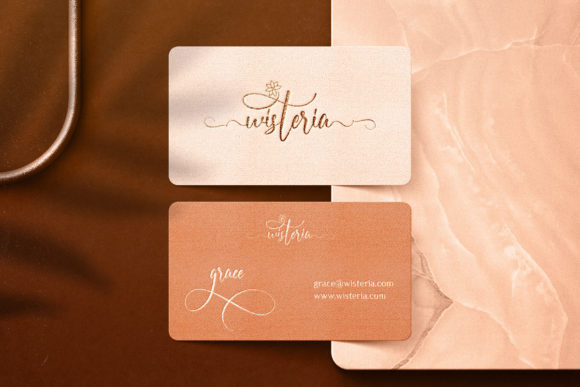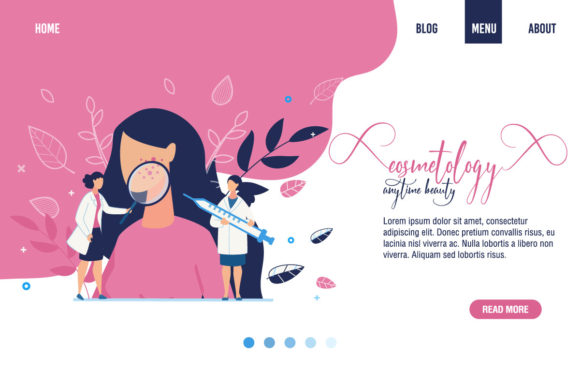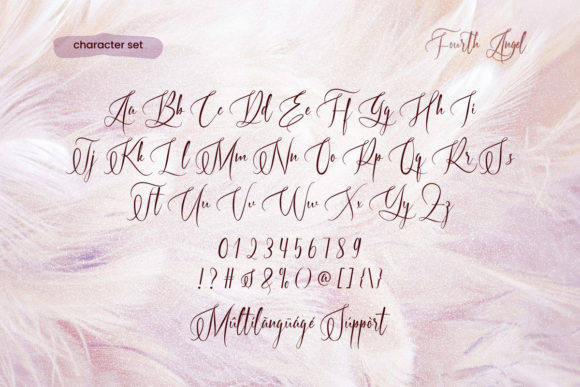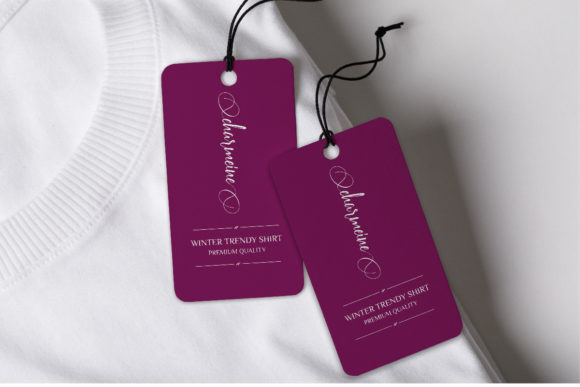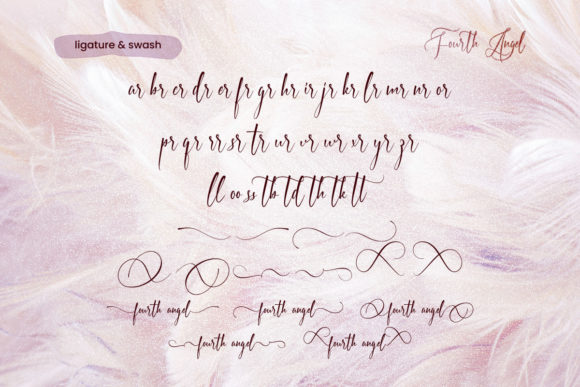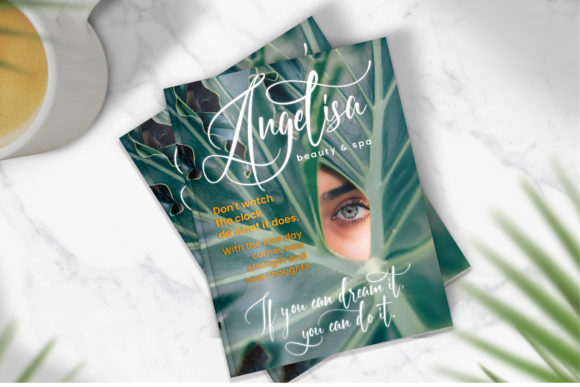
Introducing Fourth Angel Font: Elevate Your Designs with Elegance
In the world of typography, fonts play a crucial role in conveying the tone and aesthetic of a design. For designers and crafters seeking to add a touch of sophistication and elegance to their creations, the Fourth Angel Font is an exceptional choice. This stunning script font is designed to captivate with its thin lettering and graceful strokes, making it perfect for a wide range of design projects.
The Beauty of Fourth Angel Font
Fourth Angel is a thin lettered and graceful script font that exudes a sense of refinement and luxury. Its ravishing style is sure to fall in love with, and its versatility makes it an excellent addition to any designer’s toolkit. Whether you’re working on a branding project, creating wedding invitations, or designing social media graphics, this font is sure to elevate your designs to new heights.
One of the standout features of the Fourth Angel Font is its PUA (Private Use Area) encoding. This means that you can access all of the glyphs and swashes with ease, giving you complete creative control over your designs. With PUA encoding, you can effortlessly navigate the font’s extensive character set, including alternates, ligatures, and swashes, to create truly unique and stunning designs.
The Fourth Angel Font offers endless design possibilities, making it an excellent choice for a wide range of projects. Here are just a few ideas to get you started:
- Branding and Logos: Use Fourth Angel to create elegant and sophisticated brand identities that exude refinement and luxury.
- Wedding and Event Stationery: Add a touch of romance and whimsy to your wedding invitations, save-the-dates, and other event stationery with this beautiful script font.
- Social Media Graphics: Elevate your social media graphics with Fourth Angel’s elegant and refined style, perfect for creating stunning Facebook and Instagram posts.
- Packaging and Product Design: Use Fourth Angel to add a touch of sophistication to your packaging and product designs, making them stand out on store shelves.
Why Choose Fourth Angel Font?
With so many fonts available, why choose Fourth Angel? Here are just a few reasons why this font stands out:
- Unique and Elegant Style: Fourth Angel’s thin lettering and graceful strokes make it a truly unique and elegant font that’s sure to turn heads.
- PUA Encoding: With PUA encoding, you have easy access to all of the font’s glyphs and swashes, giving you complete creative control.
- Versatility: Fourth Angel is perfect for a wide range of design projects, from branding and logos to wedding stationery and social media graphics.
In conclusion, the Fourth Angel Font is an exceptional choice for designers and crafters seeking to add a touch of elegance and sophistication to their designs. With its thin lettering, graceful strokes, and PUA encoding, this font offers endless design possibilities. Whether you’re working on a branding project, creating wedding invitations, or designing social media graphics, Fourth Angel is sure to elevate your designs to new heights. So why wait? Fall in love with Fourth Angel’s ravishing style and make it a part of your design toolkit today!